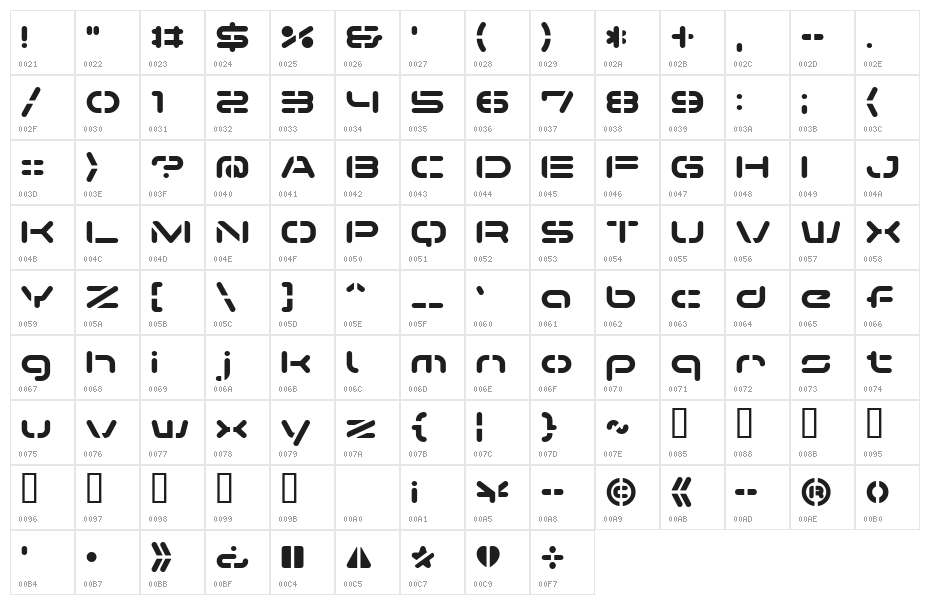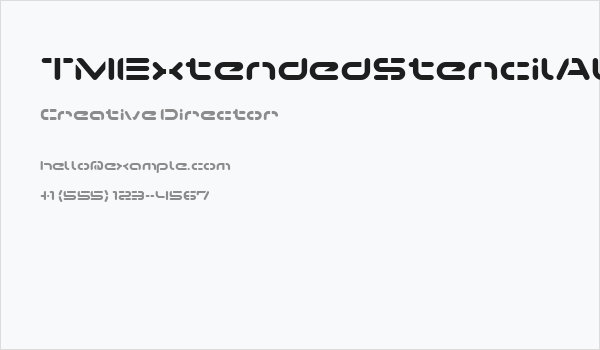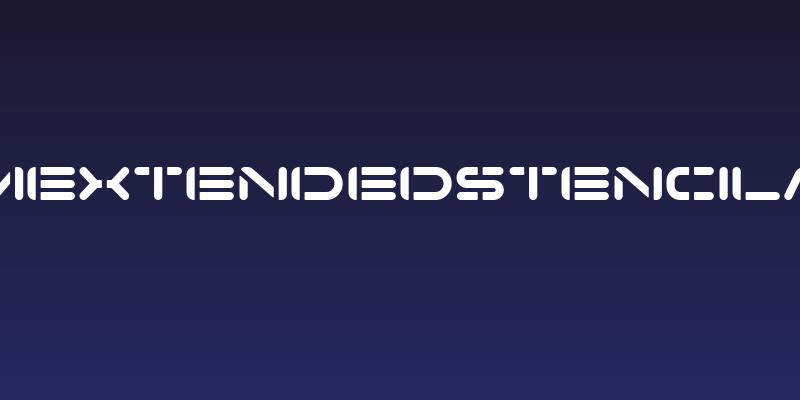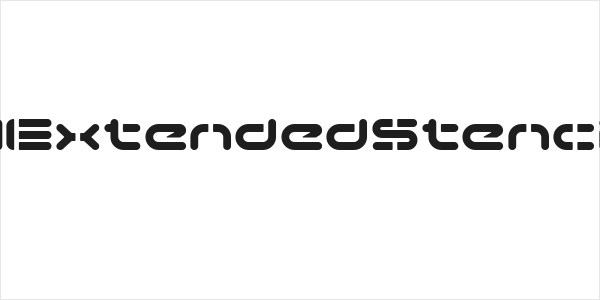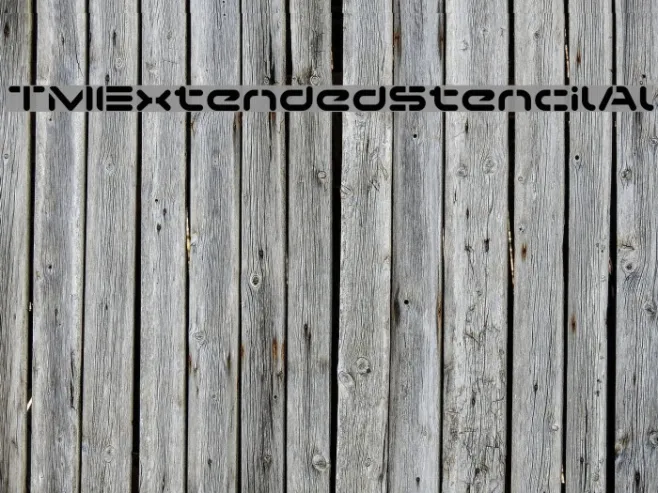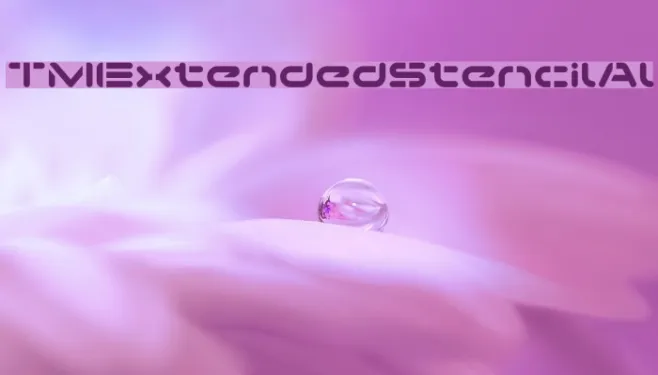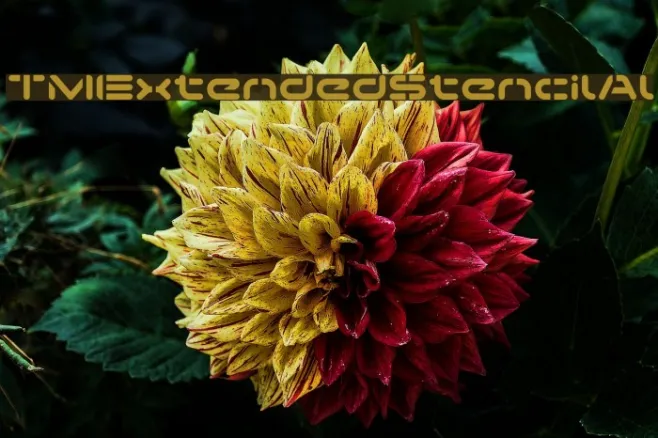
TMExtendedStencilAl Font
TMExtendedStencilAl Description
This font features a bold, modern stencil design with a futuristic flair. The characters are constructed with clean, geometric shapes and distinct cutouts, giving it a technical and industrial appearance. The uppercase and lowercase letters maintain a consistent style, with rounded edges and uniform line thickness. Numbers and special characters are designed to match the overall aesthetic, ensuring a cohesive look across all text. The font's unique style makes it stand out, ideal for projects that require a strong visual impact.
| Proposed Projects | Ideal for branding, signage, posters, and any project needing a modern, technical look. |